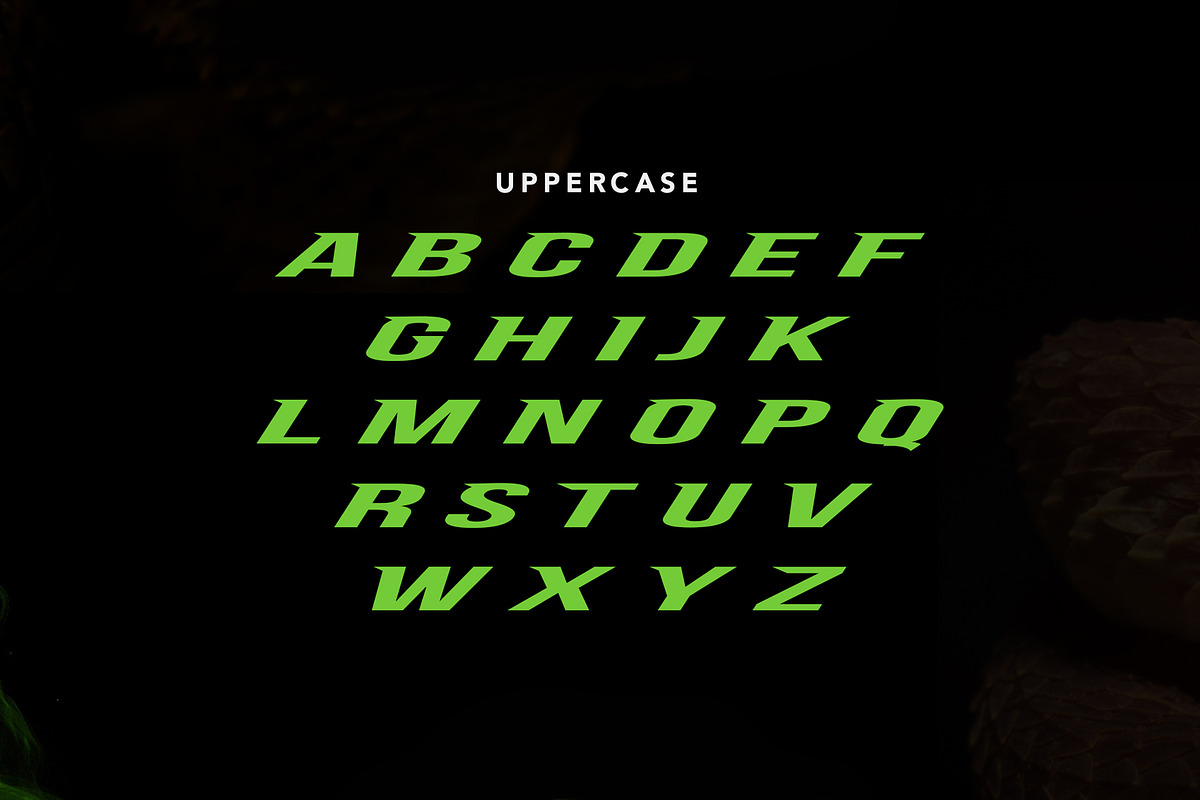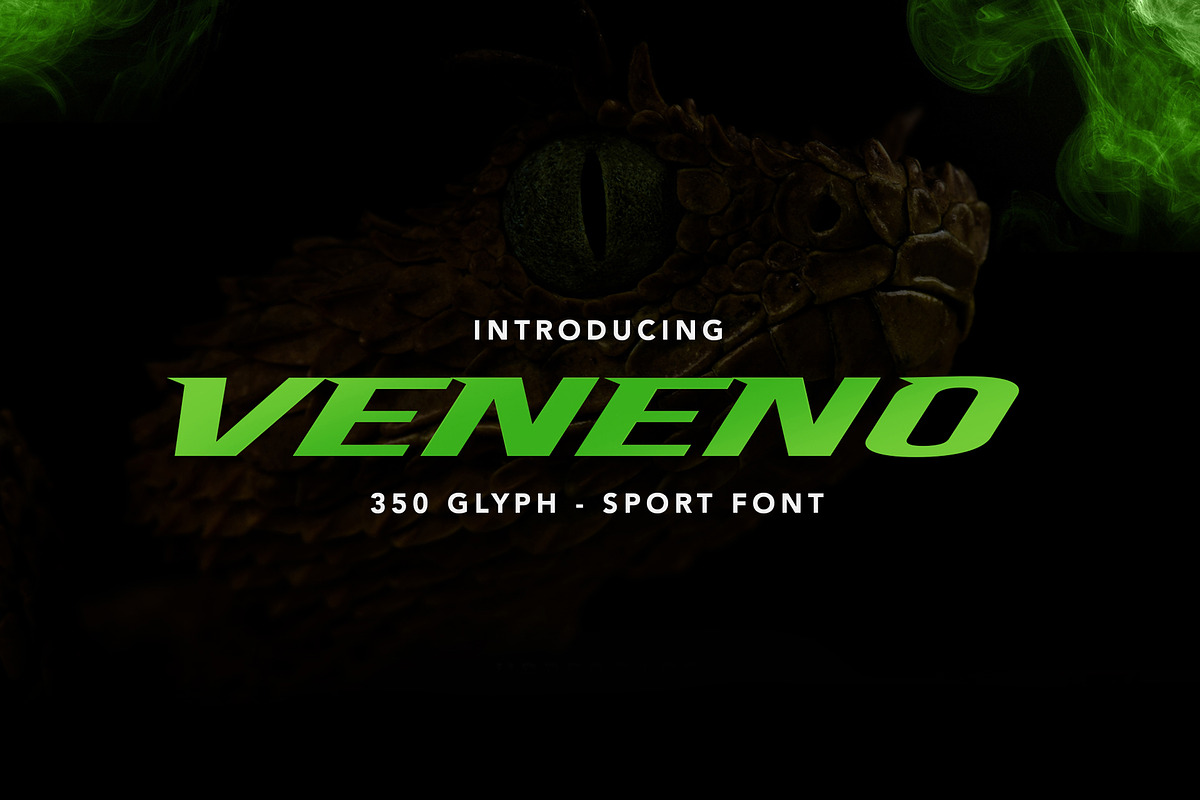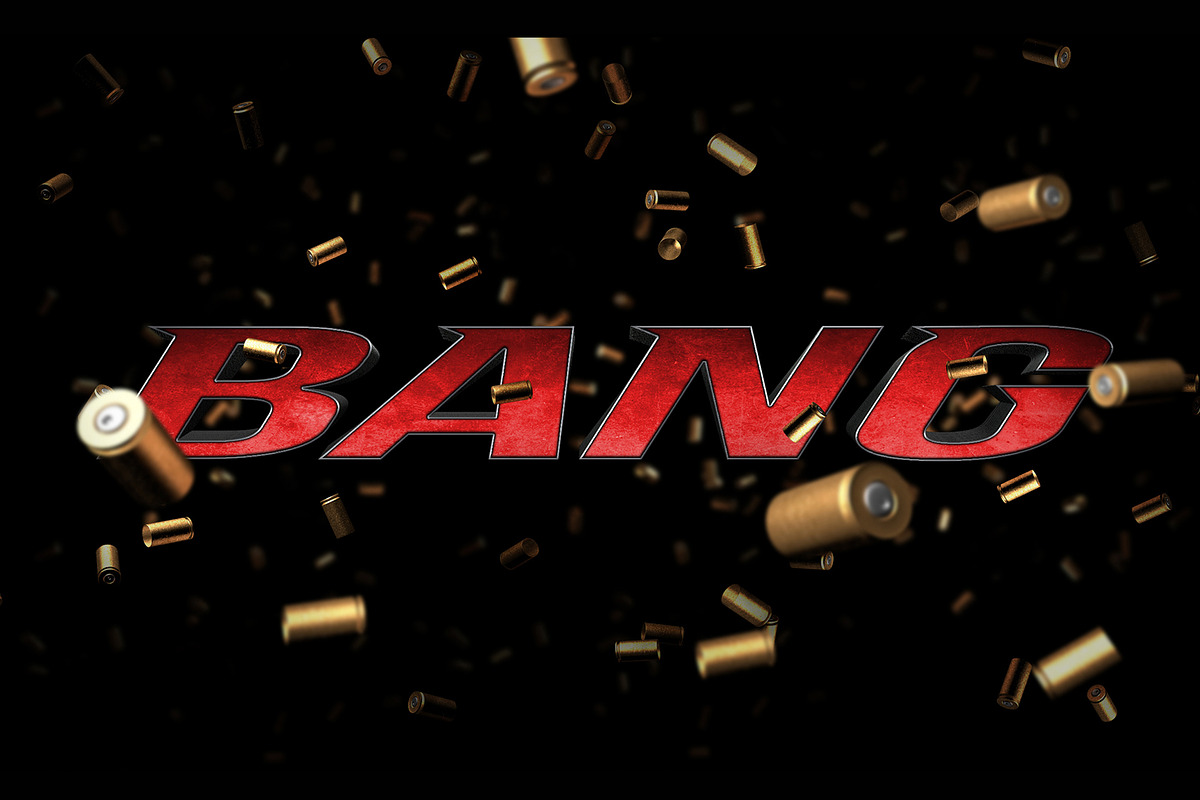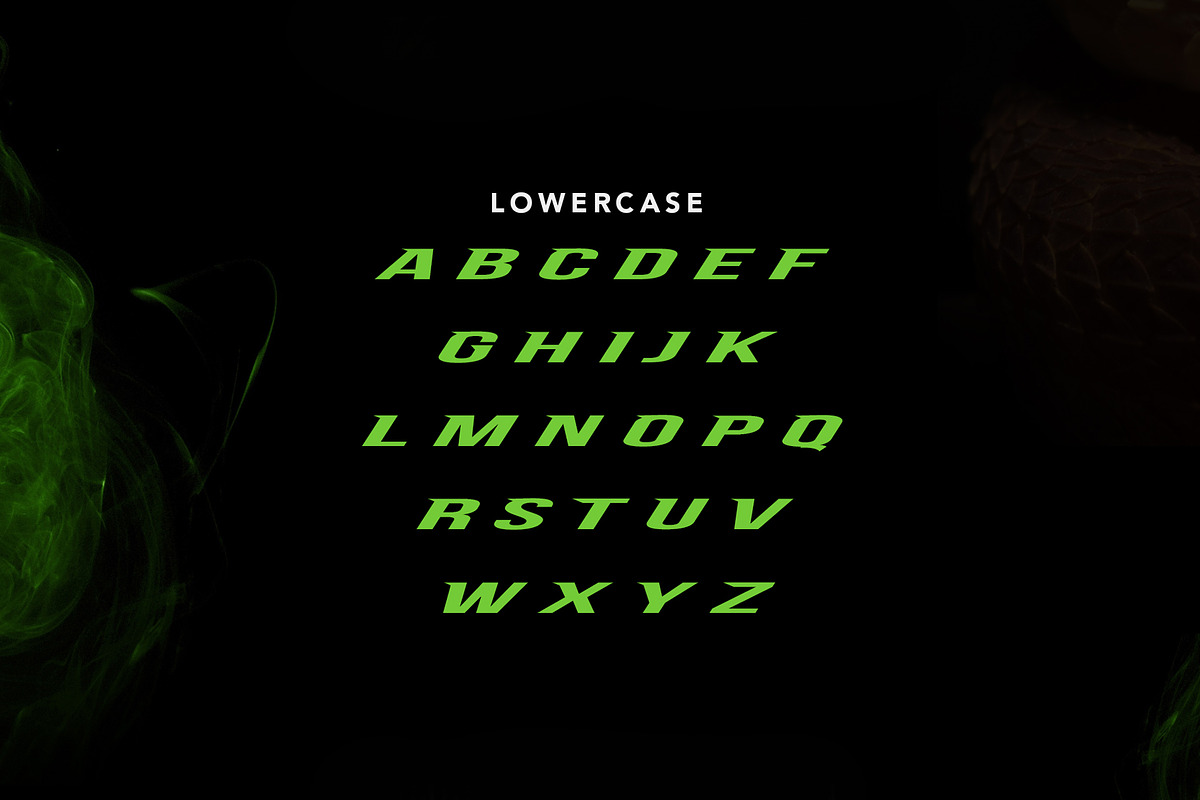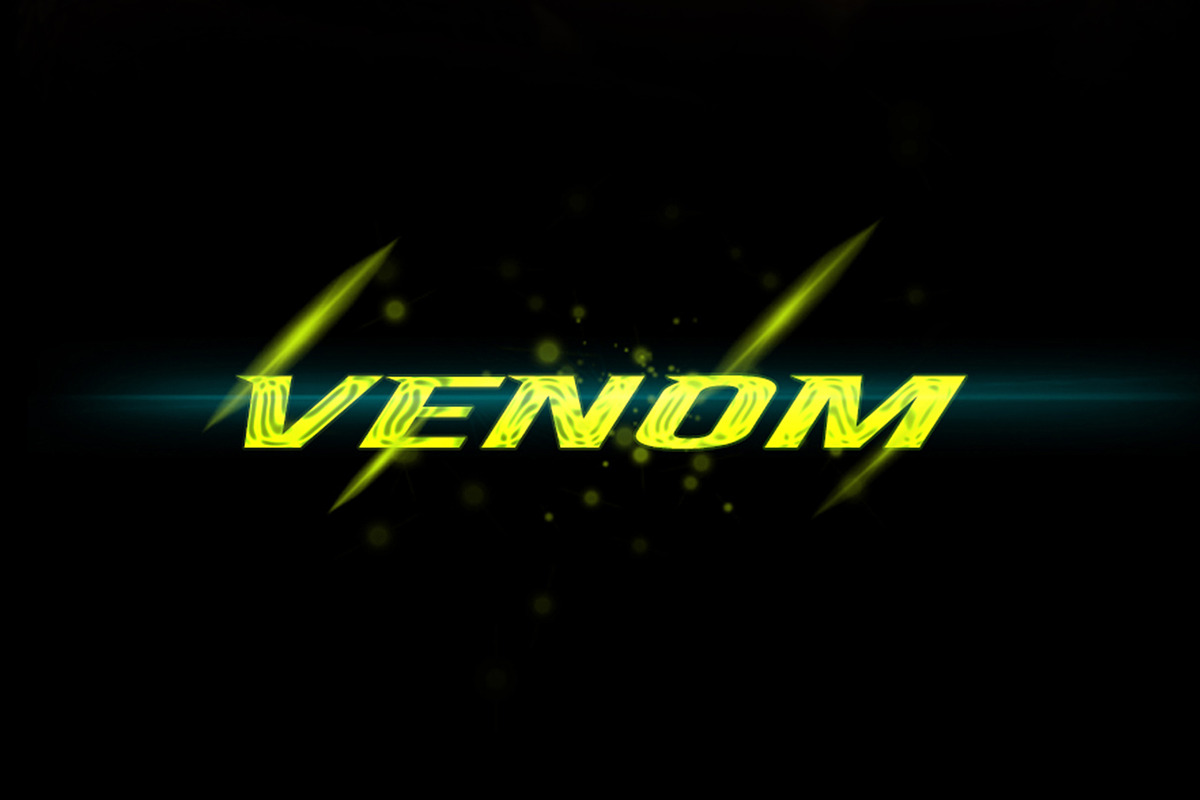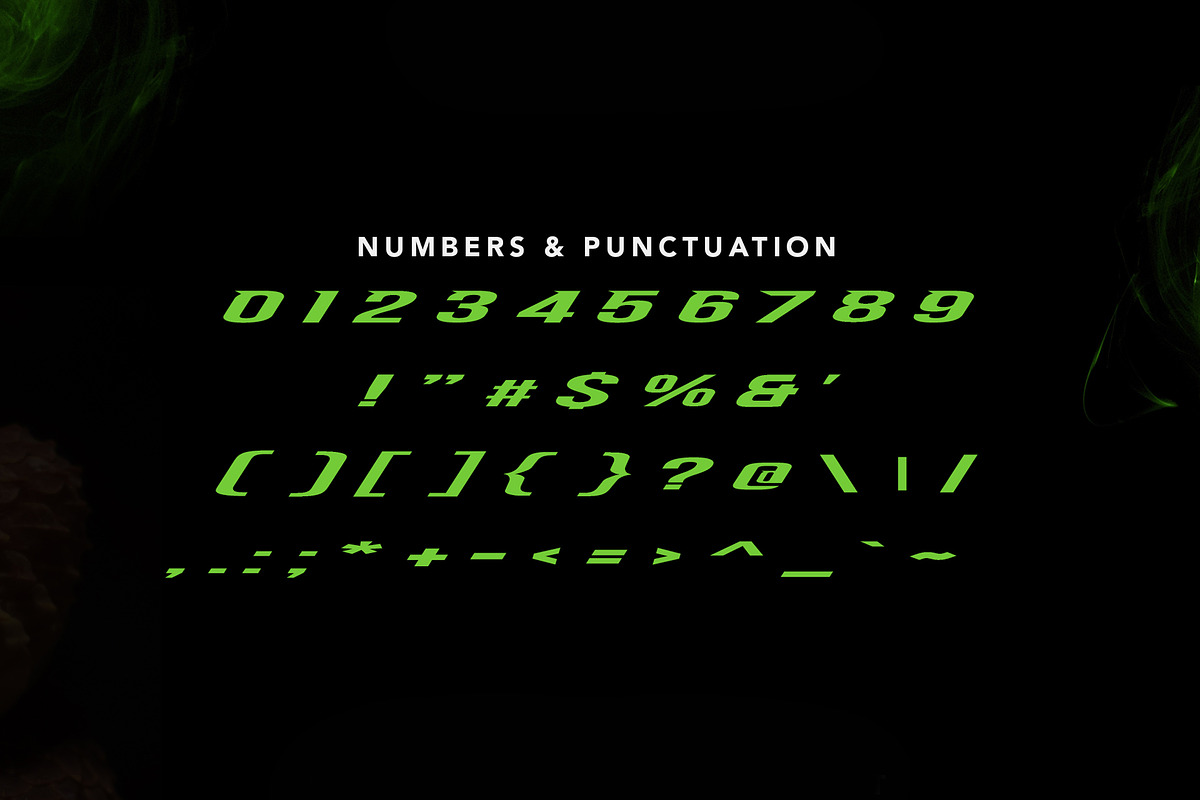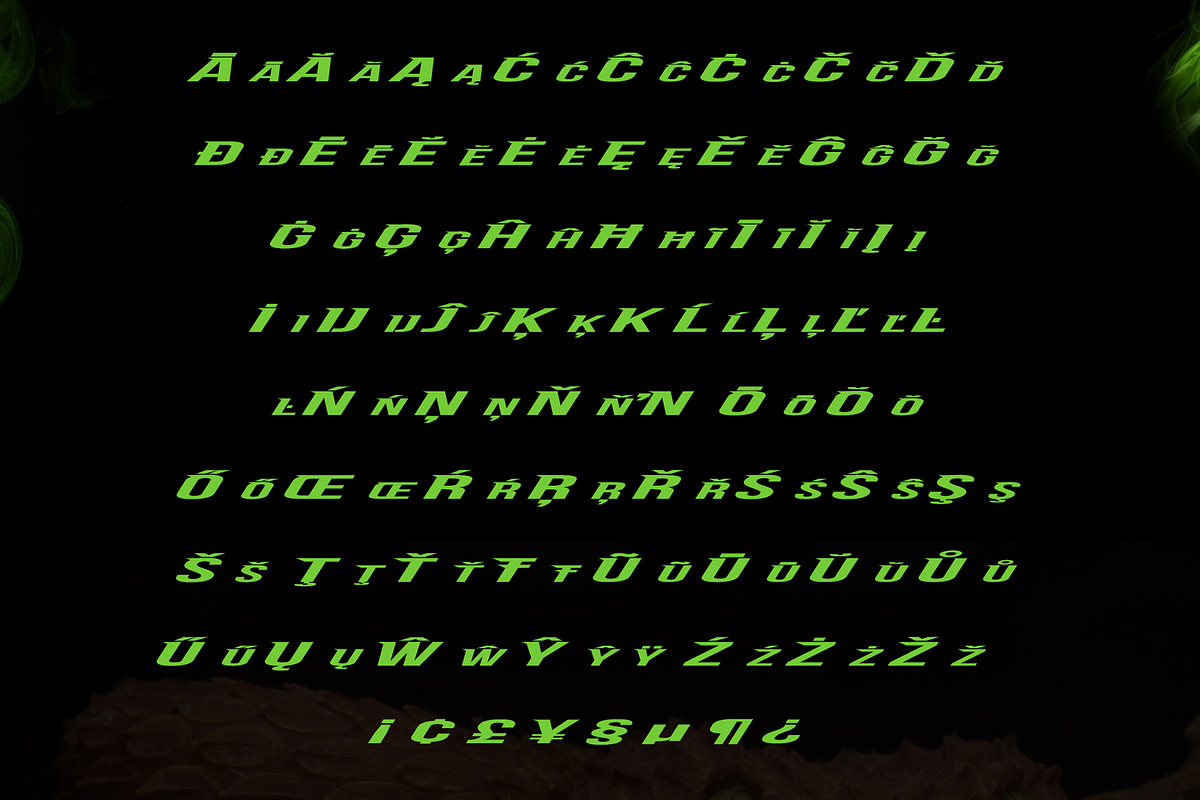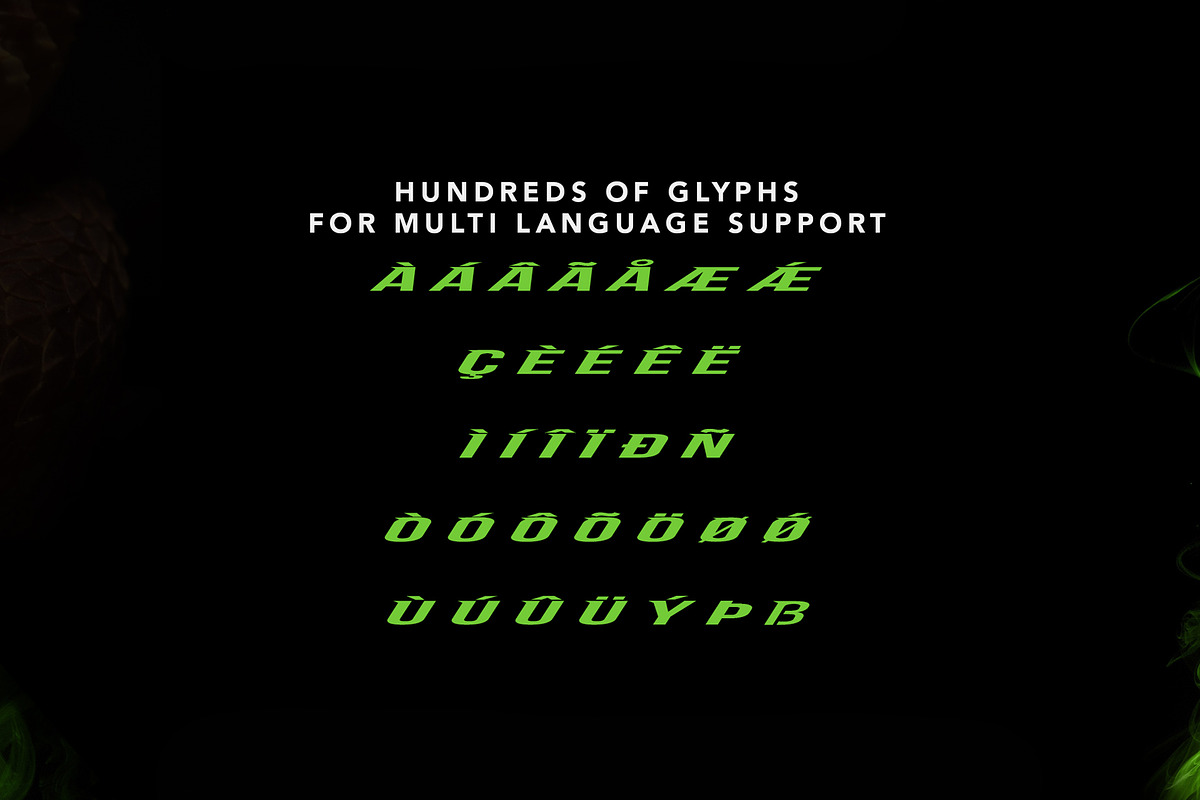
Veneno Typeface
Veneno is a futuristic sport font with 350 glyphs.
Inspired by the sleek and aggressive nature of the viper, this font is perfect for any design that needs that extra punch (Logo Design, Sports Design, Team Brand Identities, Video Editing, Jersey Design, Flyers, Posters, Headlines, Performance Products, etc.)
Multiple Languages Supported!
- Uppercase, Lowercase, Multi Language Glyphs, Numbers, Symbols, and Punctuation included.
- Veneno Regular